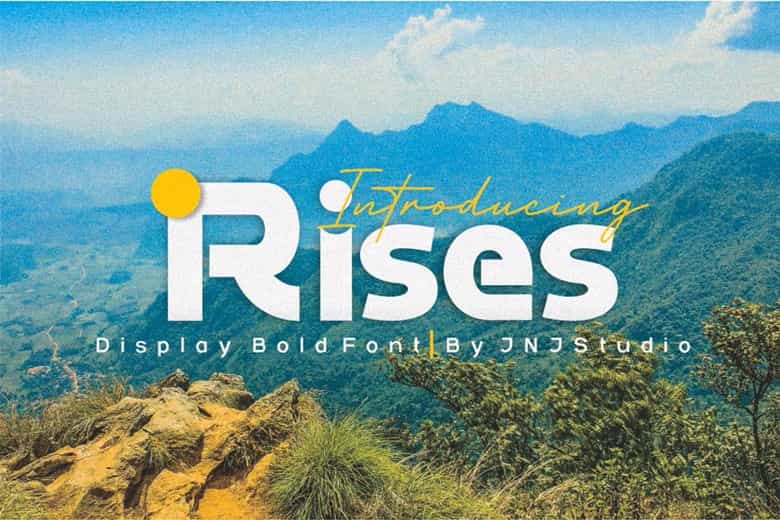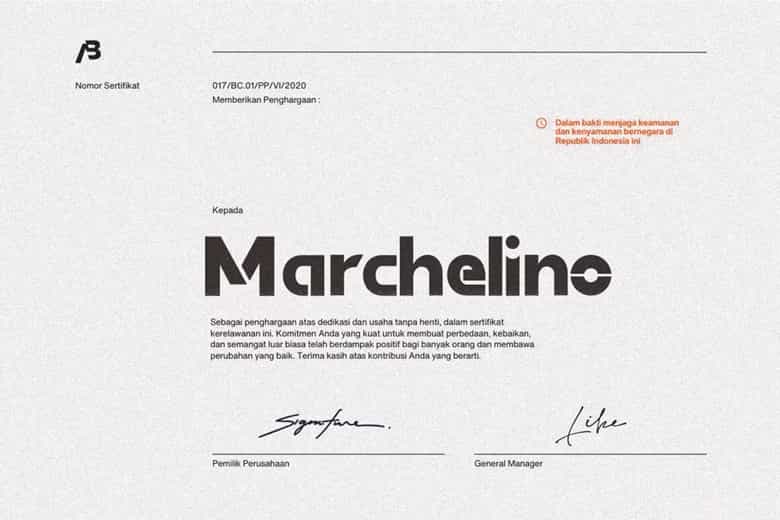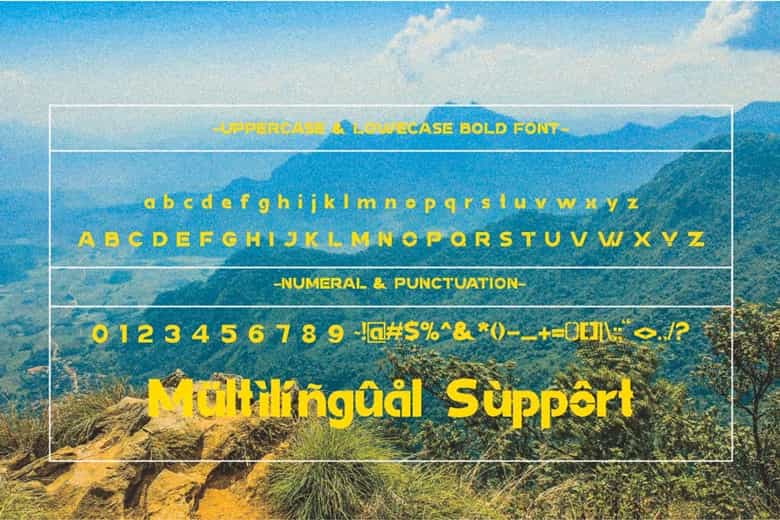
Rises is a modern bold display font that takes a risings attention of every letters. Rises was designed with maximum impact as the goal: big, bold, sharp angles and beds; deserves thick strokes and a confident structure for the big headlines, big posters, logos and boasting that will rise above the rest and make a statement.